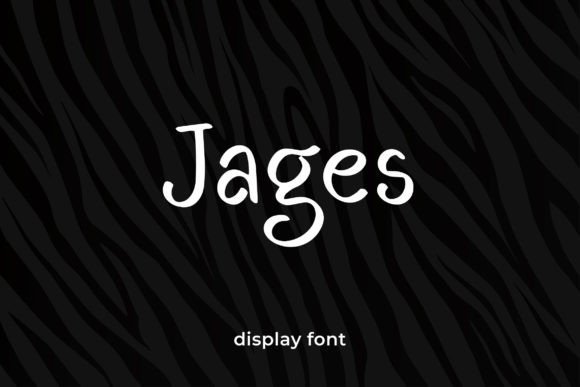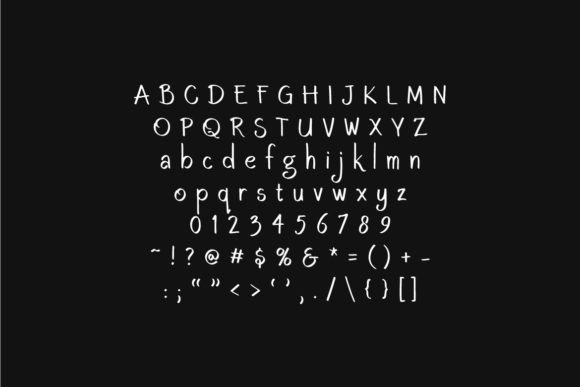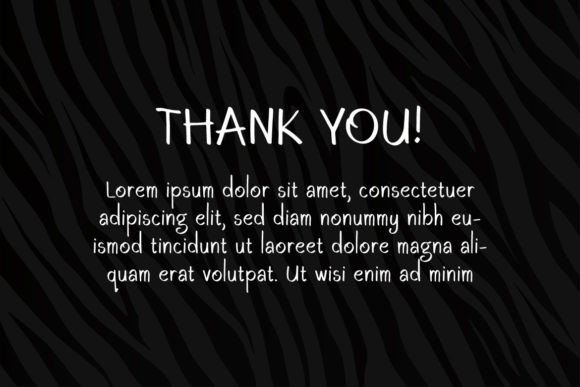
Unlock the Creative Potential of Your Designs
Remember that moment when a great font choice can elevate your entire design? It’s like the missing piece of a puzzle, bringing everything together in perfect harmony. For designers, finding the right font can be a game-changer. That’s where Jages Font comes in – a modern handwriting font designed to add a touch of personality to your work.
Jages Font is more than just a pretty face; it’s a versatile tool that can be used for a wide range of projects, from music covers and movie titles to book titles, magazines, posters, advertisements, and social media content. Its clean and simple design makes it an excellent choice for logo design and branding, too. Whether you’re a seasoned pro or just starting out, Jages Font is an invaluable asset for any designer looking to take their work to the next level.
Jages Font Key Features
- Unique Characteristics: Jages Font features a unique blend of modern and traditional design elements, making it an ideal choice for designers who want to create a distinctive and eye-catching visual identity.
- Font Weight: Jages Font is available in multiple weights, including Light, Regular, Medium, Bold, and Black, allowing designers to choose the perfect weight to match their design style.
Jages Font Review
First off, I’d like to say that Jages Font has some great qualities that make it stand out. ✨ One of the things that really works well is its unique and elegant feel. The font is perfect for creating a sense of sophistication and luxury in any design project. ✨ Another strength of Jages Font is its versatility – it can be used in a wide range of applications, from branding and advertising to digital products and websites.
- ✨ Elegant and sophisticated feel
- ✨ Versatile and suitable for various applications
- ✨ Wide range of language support
However, there are some limitations to Jages Font that are worth mentioning. ⚠️ One of the main issues is that it can be quite difficult to read at smaller font sizes. This can be a problem for designs that require a lot of text, such as websites or documents. ⚠️ Another limitation is that Jages Font may not be suitable for designs that require a lot of bold or italic text, as it can become difficult to read in these formats.
- ⚠️ Difficult to read at smaller font sizes
- ⚠️ May not be suitable for bold or italic text
Overall, I’d say that Jages Font is a great choice for designs that require a touch of elegance and sophistication. However, it’s not without its limitations, and designers should be aware of these before choosing to use it in their project.
Jages Font Practical Application Guide
The Jages font is a versatile, modern sans-serif font ideal for various design applications. To get the most out of it, familiarize yourself with its unique characteristics and style.
For optimal results, use the Jages font for headings, titles, and body text in modern, minimalist designs. It’s particularly suitable for tech, fashion, and lifestyle brands.
Experiment with different font sizes and styles to create visual interest and hierarchy in your design.